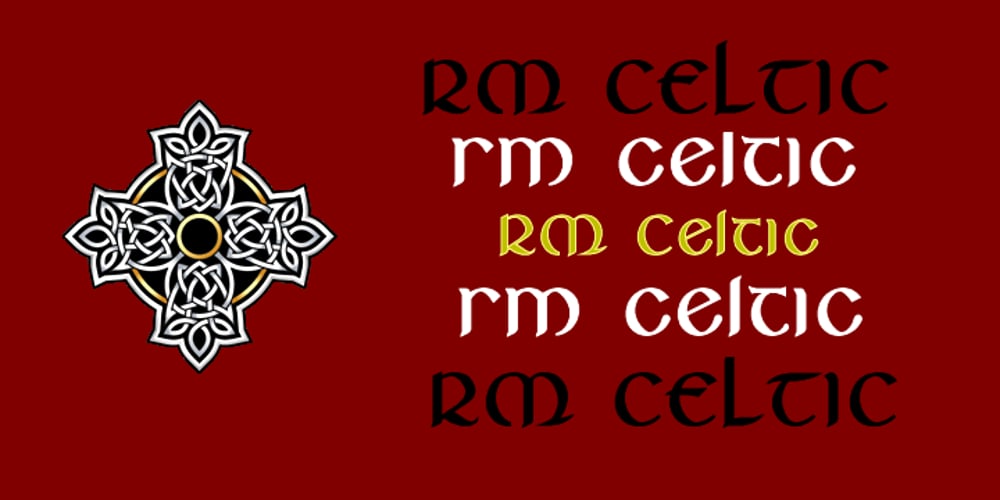
RM Celtic Font Family was designed by Ray Meadows and published by Ray Meadows. RM Celtic contains 8 styles and family package options. RM Celtic is derived from a mix of Uncial, Carolingian, Insular and Half-Uncial characters that, together, provide a legible and useable font with a touch of that old Celtic magic. Due to the modular nature of this design there may be a slight lack of smoothness to the curves at very large point sizes (around 100 pt and above).